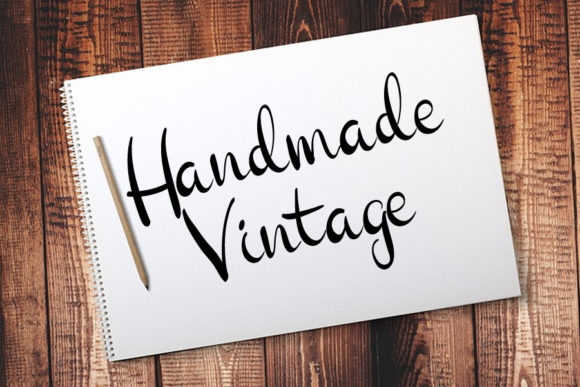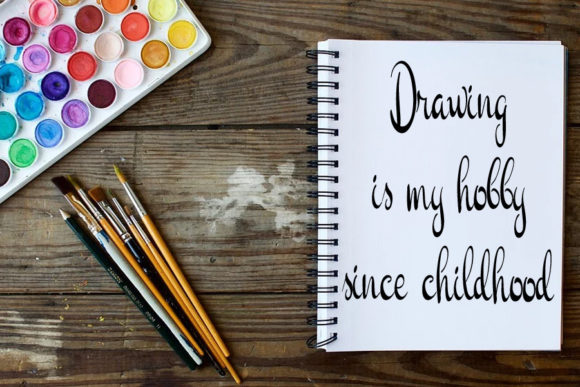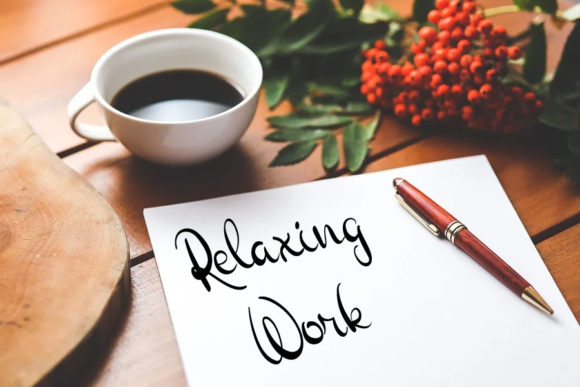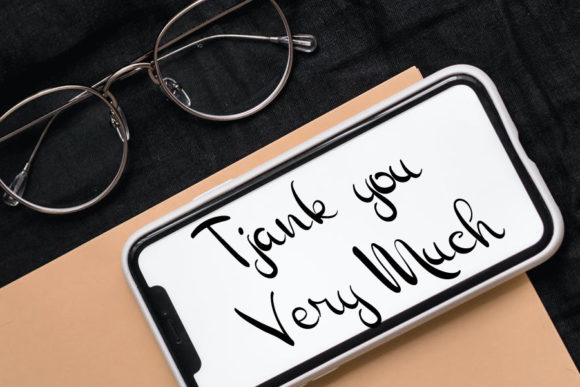
Wolles Font
About Wolles Font
Introducing “Wolles,” a stylish and beautiful script font that exudes elegance and sophistication. Perfect for a variety of design projects, Wolles adds a touch of class and refinement to wedding invitations, thank you cards, quotes, greeting cards, logos, business cards, and any other design that requires a handwritten touch.
With its flowing and graceful strokes, Wolles elevates your designs with its timeless charm. Whether you’re creating elegant wedding invitations, heartfelt thank you cards, inspiring quotes, or striking logos, this font brings a sense of sophistication and beauty to every project.
Wolles is versatile and adaptable, making it suitable for a wide range of design applications. Its stylish script lends a touch of elegance to any design, while its handwritten touch adds a personal and authentic feel.
Experience the beauty and versatility of Wolles and watch as it transforms your designs into works of art. Whether you’re a professional designer or a creative enthusiast, this font invites you to explore new possibilities and express yourself with confidence and style.
Unlock the full potential of your designs with Wolles and let its stylish and beautiful script font add a touch of class to your projects. With its timeless elegance and versatile nature, this font is sure to become a staple in your design toolkit, enhancing every design with its handwritten touch.